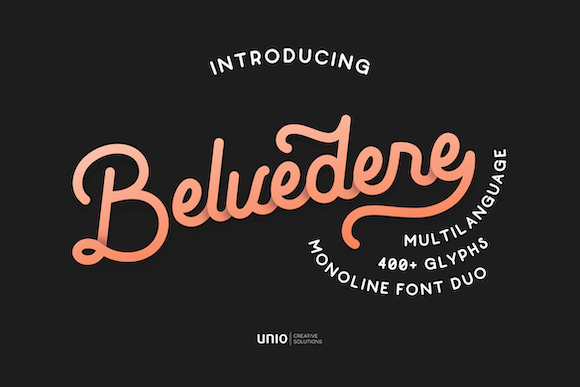
Belvedere Font: A Timeless Masterpiece for Your Design Arsenal
Embark on a captivating journey through the realm of typography with Belvedere Font, a remarkable script font duo that exudes vintage charm and timeless elegance. Inspired by the rich heritage of classic signage and handcrafted lettering, Belvedere Font is a symphony of flowing curves and graceful strokes that will leave an indelible mark on your designs.
With its inherent beauty and versatility, Belvedere Font effortlessly elevates any project, from captivating headers and titles to eye-catching logos and branding. Its meticulously crafted characters dance across the page, evoking a sense of nostalgia and authenticity that is sure to resonate with your audience.
Belvedere Font's inherent charm lies in its ability to transport you back in time, capturing the essence of yesteryear's aesthetics. Whether you're designing vintage-inspired posters, elegant wedding invitations, or retro-themed packaging, Belvedere Font will effortlessly evoke a sense of timeless sophistication.
Unleash your creativity and let Belvedere Font guide you through a world of endless possibilities. Its versatile nature allows it to seamlessly blend with various design styles, from classic and traditional to modern and contemporary. Create stunning social media graphics, eye-catching website designs, and captivating marketing materials that will leave a lasting impression on your audience.
With Belvedere Font, the ordinary becomes extraordinary. Its intricate details and expressive strokes add a touch of personality and flair to any project. Imagine your designs coming to life with the captivating curves and elegant flourishes of Belvedere Font, capturing hearts and captivating minds.
Immerse yourself in the world of Belvedere Font and discover a new level of typographic excellence. Let its vintage charm inspire you, its versatility empower you, and its beauty captivate your audience. Embrace the timeless artistry of Belvedere Font and elevate your designs to new heights of creativity and sophistication.